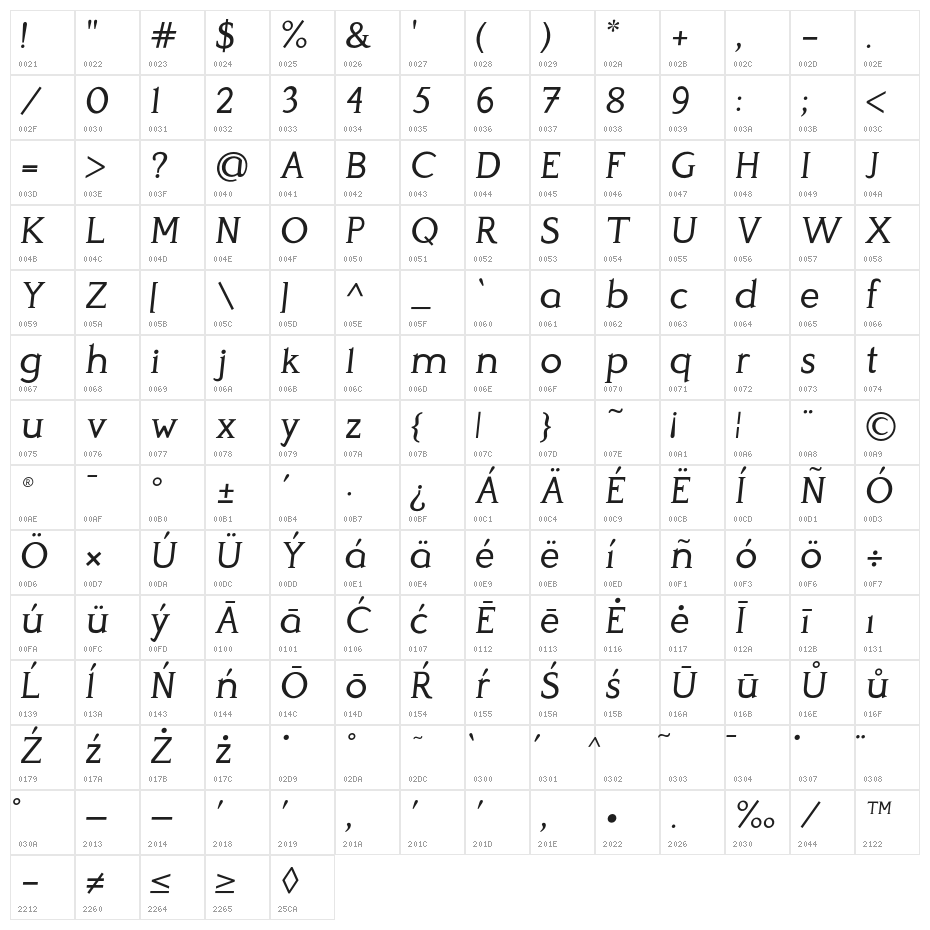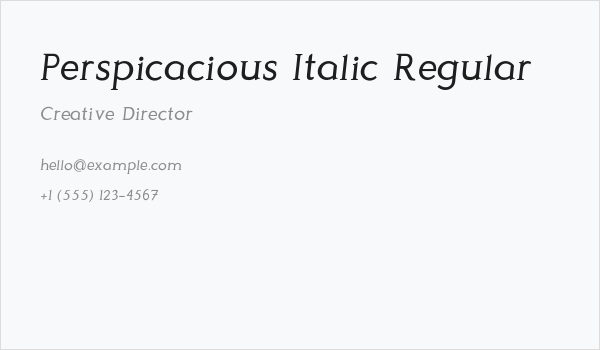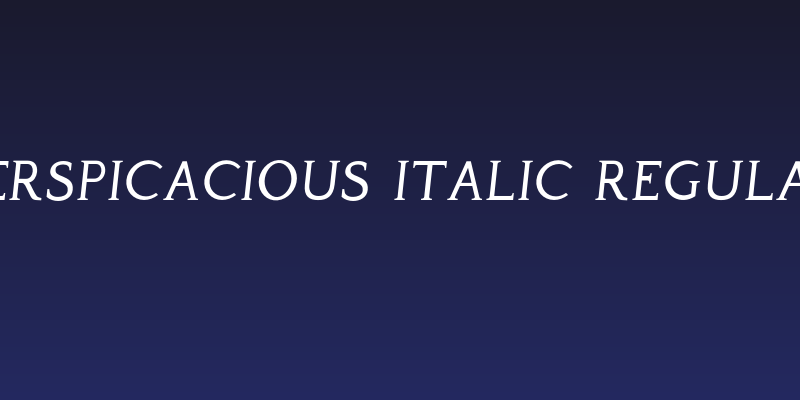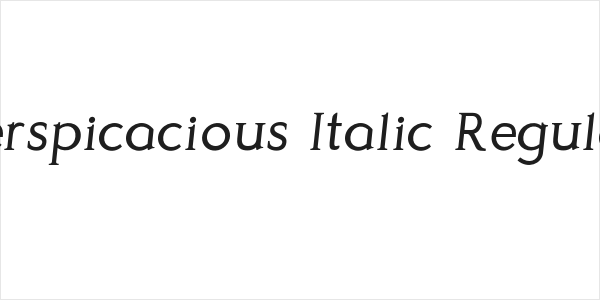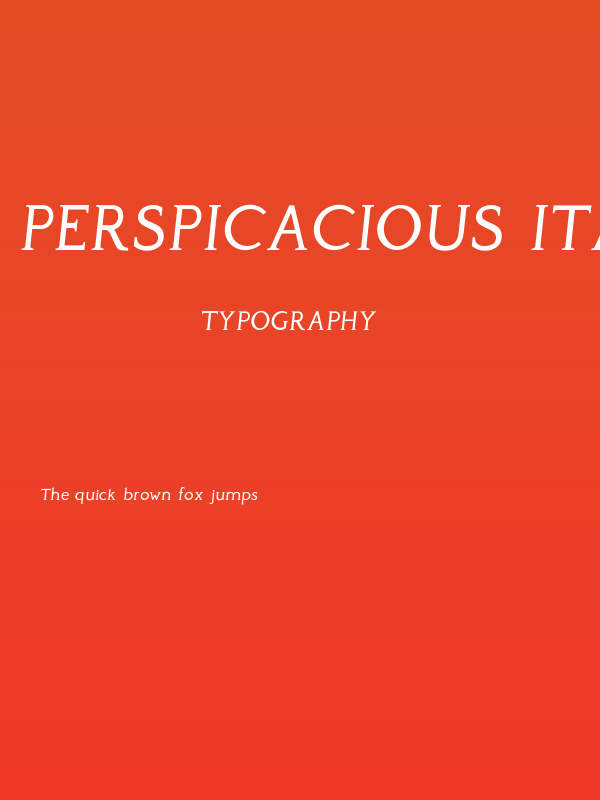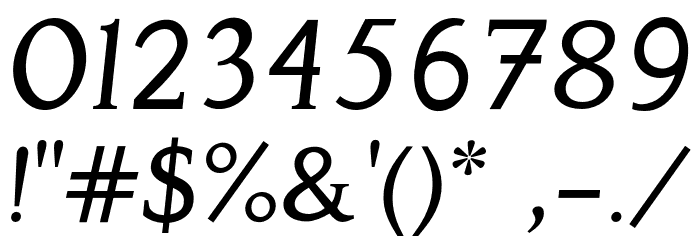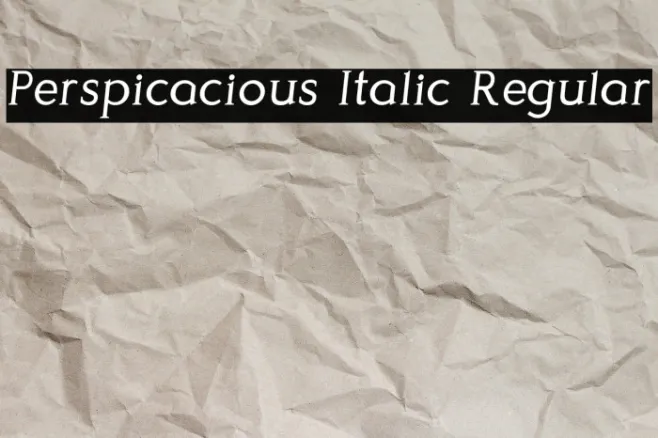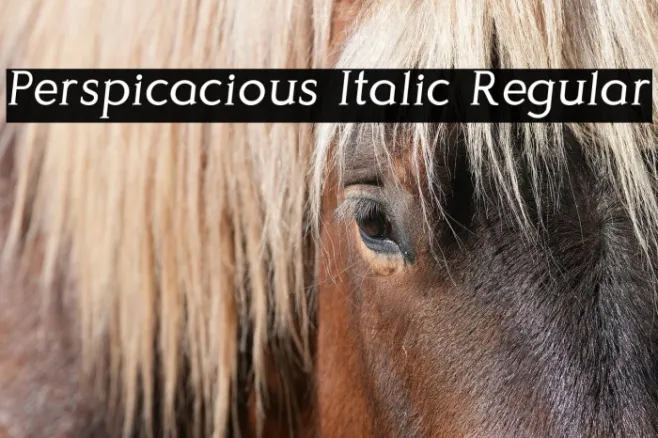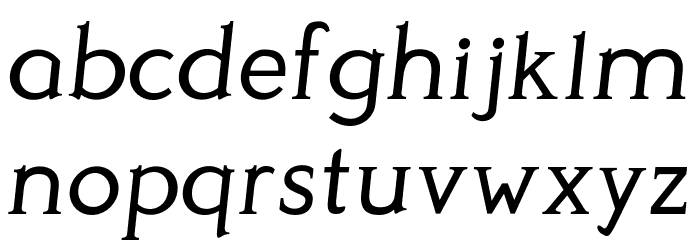
Perspicacious Italic Regular Font
Perspicacious Italic Regular Description
This font features a classic serif style with a distinct italic slant, giving it an elegant and sophisticated appearance. The characters are well-proportioned, with a moderate contrast between thick and thin strokes, enhancing readability while maintaining a stylish look. The uppercase letters are bold and commanding, while the lowercase letters offer a softer, more approachable feel. The numerals are clear and consistent, making them suitable for various applications. Special characters are thoughtfully designed, complementing the overall aesthetic. This font is versatile, suitable for both formal and creative projects.
| Proposed Projects | Ideal for book covers, formal invitations, branding, and editorial design. |